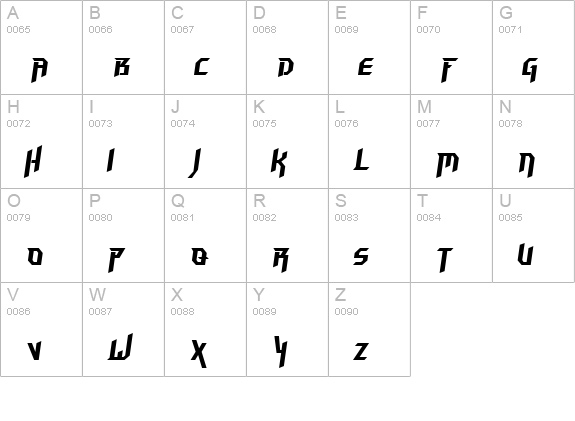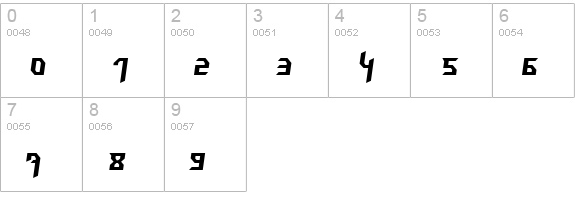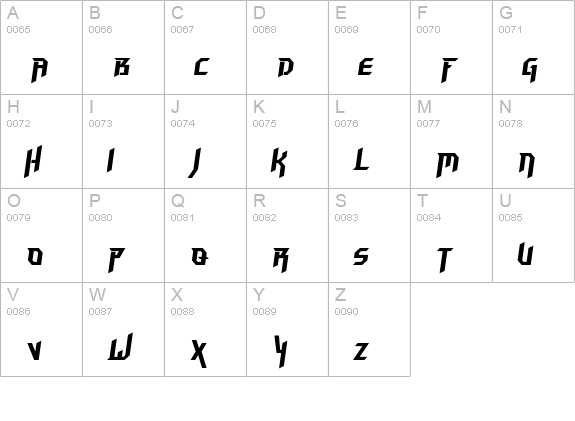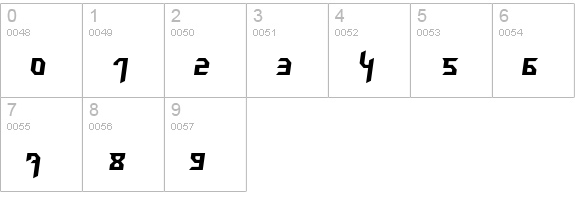
Hammerhead Italic is a distinctive, italic variant in the Hammerhead typeface family \xE2\x80\x94 well suited to design and typography projects.
Hammerhead Italic font is a bold and dynamic typeface that exudes strength and confidence. With its unique and eye-catching design, this font is perfect for making a statement in your projects. Whether you're creating a striking logo, designing a captivating poster, or crafting a memorable headline, Hammerhead Italic font is sure to leave a lasting impression. This font features strong, sharp serifs that add a touch of elegance and sophistication to any text. The italicized style of Hammerhead adds a sense of movement and energy, making it ideal for projects that require a dynamic and engaging look. One of the best things about Hammerhead Italic font is that it is completely free. Yes, you read that right - this incredible font is freely available to download at FontsMarket.com. You no longer have to worry about breaking the bank to get a high-quality and stylish font for your designs. Simply head over to FontsMarket.com and start using Hammerhead Italic font in your creative projects today. With its versatility and striking appearance, Hammerhead Italic font is suitable for a wide range of design applications. From branding and advertising to web design and packaging, this font is a versatile tool that can elevate the overall aesthetic of your projects. So why wait? Take advantage of this amazing opportunity and download Hammerhead Italic font for free at FontsMarket.com. Don't miss out on this stylish and impactful typeface that will set your designs apart from the rest. Get Hammerhead Italic font today and unleash your creativity like never before.